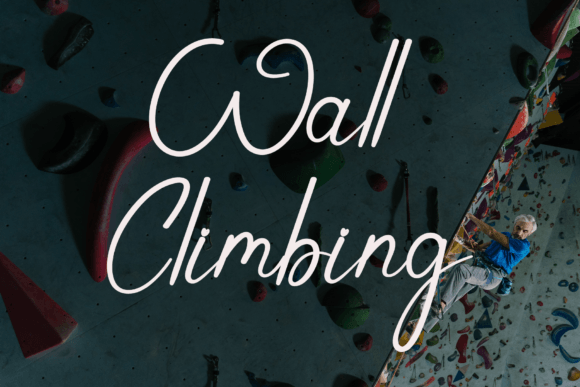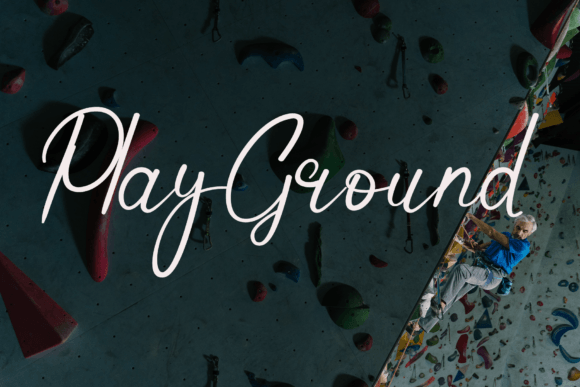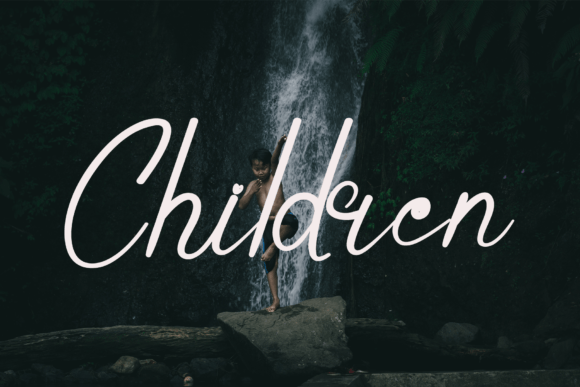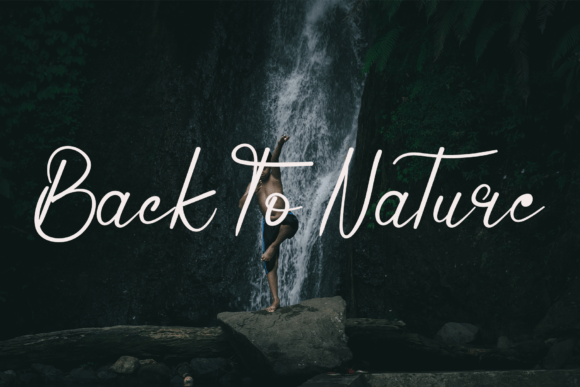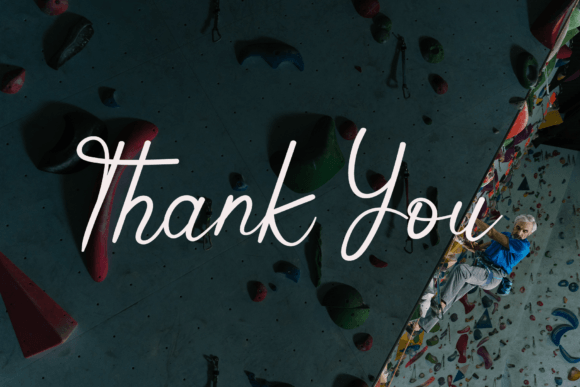
Introduction to Outbond Font
Have you ever stared at a blank page, wondering how to bring your creative vision to life? For designers, this moment is all too familiar. The blank slate can be daunting, but it’s also an opportunity to unleash your imagination and create something truly unique. That’s where the Outbond Font comes in – a charming, handwritten font that adds a touch of whimsy and personality to any project.
As a valuable design resource, the Outbond Font is perfect for creatives who want to add a personal touch to their work. With its natural, handwritten style, it’s ideal for designs that require a high level of individuality, such as branding, invitations, or social media graphics. Whether you’re working on a free download or a high-quality commercial project, the Outbond Font is sure to make your design stand out.
Key Features of Outbond Font
- High-Quality Design Resource: Outbond Font offers a unique and stylish design element for creative projects.
- Unique Characteristics: Outbond Font features a distinctive, modern design that sets it apart from other fonts, making it perfect for creative projects.
Honest Review: Outbond Font
I recently stumbled upon the Outbond Font and was excited to try it out for my next creative project. After some experimentation, I can give you my honest take on this design resource.
What works well: ✨ The Outbond Font offers a unique and modern aesthetic that’s perfect for contemporary design projects. Its clean lines and minimalist approach make it a great addition to any design portfolio. I also appreciate the fact that it’s available for free download, making it an accessible resource for designers on a budget.
One of the standout features of the Outbond Font is its transparent background, which makes it easy to integrate into any design. It’s also a high-quality font, with clear and crisp lines that render well in various resolutions.
Limitations: ⚠️ While the Outbond Font is a solid choice for many projects, it may not be suitable for more formal or traditional designs. The font’s modern style may not be the best fit for projects that require a more conservative aesthetic.
Overall, I’m impressed with the Outbond Font and would definitely recommend it to designers looking for a modern and stylish design resource. With its high quality and transparent background, it’s a great addition to any design library.
Tips for Getting the Most Out of Outbond Font